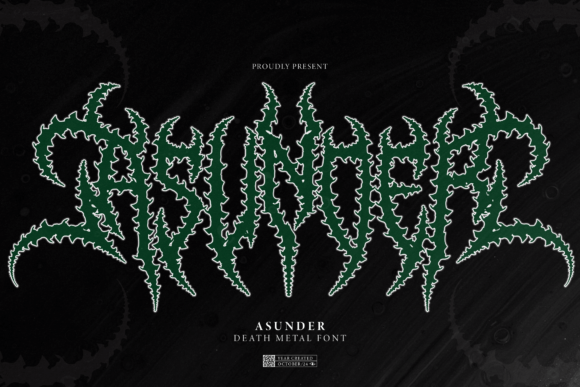
The Power of Asunder Font: Unleashing Bold, Jagged Typography
I still remember the design project that led me to discover the Asunder Font. I was working on a heavy metal band’s album cover, and I needed a font that could convey the intensity and power of their music. After hours of searching, I stumbled upon Asunder, and it was love at first sight. The bold, jagged edges and sharp, broken lines perfectly captured the essence of the band’s style. In this article, I’ll share my experience with Asunder Font, its features, and how to make the most of it in your designs.
An Honest Review of Asunder Font
- ✨ Bold and powerful: Asunder Font is perfect for making a statement. Its bold, jagged edges give your text a rough, industrial look that’s sure to grab attention.
- ✅ Perfect for heavy metal and horror designs: The font’s dark, intense look makes it ideal for designs that require a strong, aggressive aesthetic.
- 💯 Highly legible: Despite its bold, jagged edges, Asunder Font is surprisingly legible, making it suitable for use in a variety of design projects.
While Asunder Font is an excellent choice for many design projects, it’s not without its quirks. Here are a few things to keep in mind:
- 🤔 Limited use in formal designs: Asunder Font’s bold, jagged edges may not be suitable for formal designs, such as business cards or resumes.
- ⚠️ May not work well in small sizes: Asunder Font’s bold lines and jagged edges can become distorted when used in small sizes, so it’s best to use it in larger sizes where its features can shine.
- Experiment with the font’s OpenType features, such as ligatures and stylistic alternates, to add more character to your text.
- Explore the font’s glyphs and stylistic alternates to add more variety to your text.
The Backstory of Asunder Font
The Asunder Font was designed by a team of typographers who wanted to create a bold, jagged font that would capture the intensity and power of heavy metal music. The font’s design was inspired by the rough, industrial aesthetic of metal album covers and the sharp, broken edges of shattered glass.
| Font Name | Asunder Font |
| Author | Denustudios |
| What is Asunder Font? | Asunder Font is a bold, jagged Death Metal font with sharp, broken edges. |
| What is Asunder Font used for? | Asunder Font is perfect for heavy metal or horror designs, album covers, posters, and other projects that require a bold, aggressive aesthetic. |